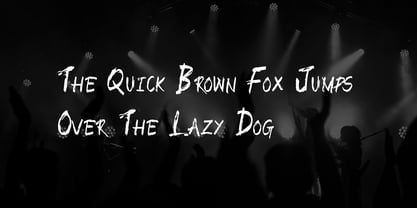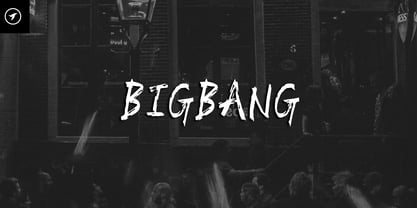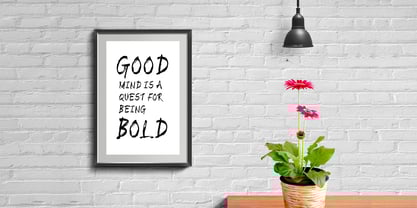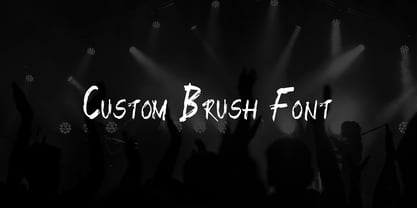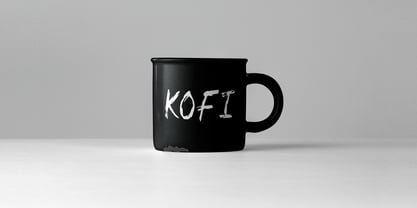
Big Bang Script
by Designova
The Big Bang Script Font Family was designed by Lisha Joseph and published by Designova. Big Bang Script contains 1 styles.
The unique handmade custom brush font is suitable for any design needs: branding, logos, handwritten quotes, product packaging, merchandise, blog design, modern advertising design, invitations, Art Quote, Home decor, Book/Cover Title, Invitation, special events, birthday, custom mug, pillow, t-shirts, any brush lettering design needs and more.